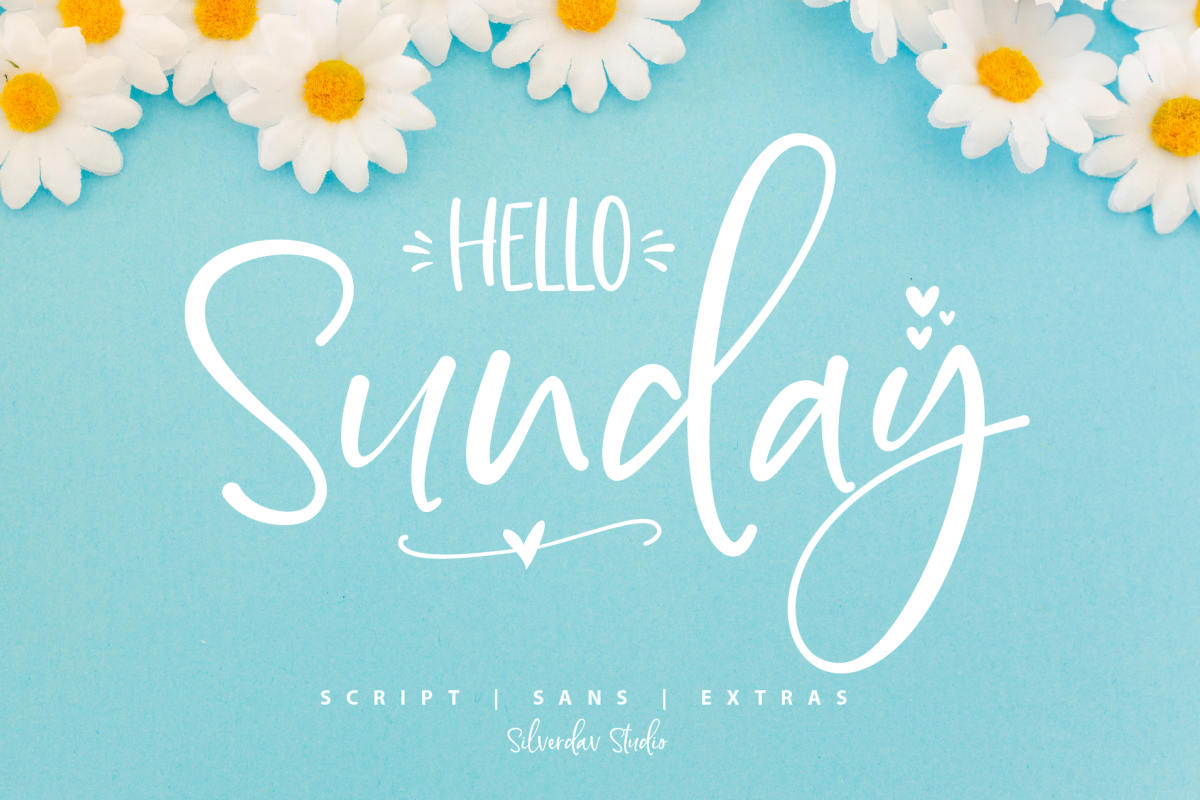
Hello Sunday - Font Duo & Extras Doodle
Allow me to introduce **Hello Sunday** A handmade font collection with a set of complimentary Illustrations. Creative and Casual, together or apart, Hello Sunday allow you to make more gorgeous typographic designs.
**Hello Sunday** is a sweet and stunning handwritten font with a whimsical twist. Use it to turn any design project into a true standout!
The script has an alternate upper and lowercase character set, as well as a large selection of Standard Ligatures – allowing you to make your design truly unique.
CUTE ILLUSTRATIONS To add to the creative punch of this pack, you get over 150 handy doodle illustrations to use, See the previews above to get some inspiration on how you can use them 🙂
• Added doodle illustration
• More Multilingual support
• And improvement of stroke lines to make them softer and neater is very important when using a cutting machine or silhouette machine